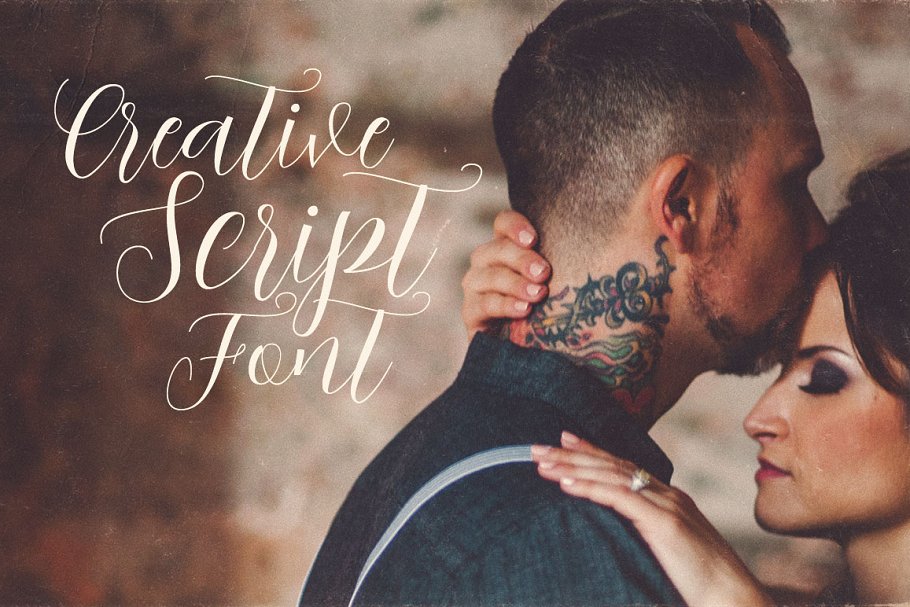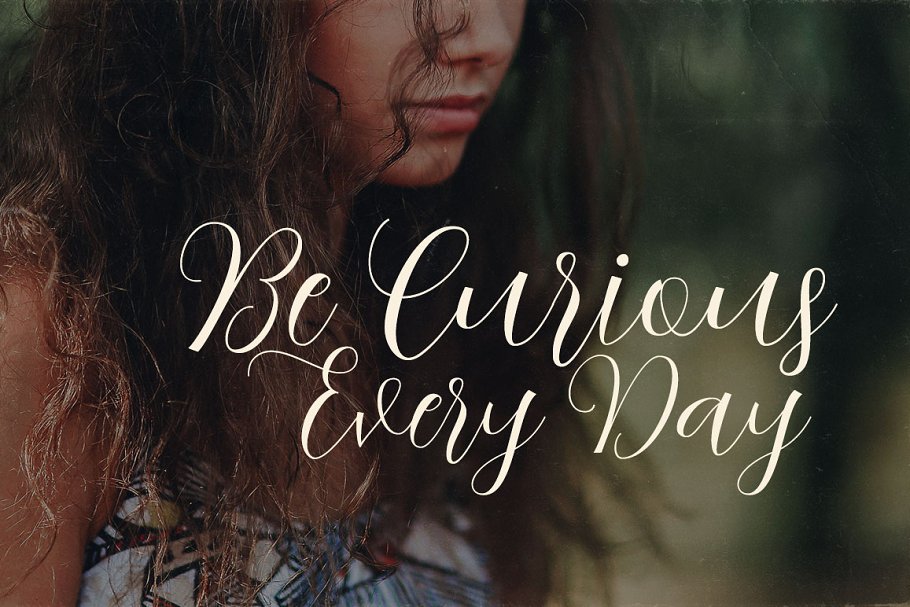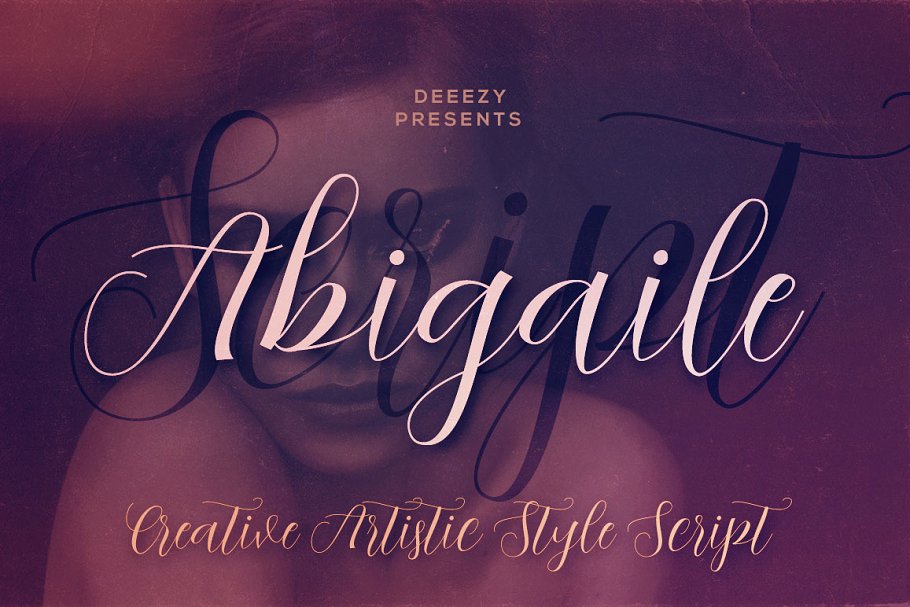
Abigaile Script Font
Thin line and handwritten or dancing baseline style script font for your new projects. With multi language support and lot of stylistic alternates. Enjoy